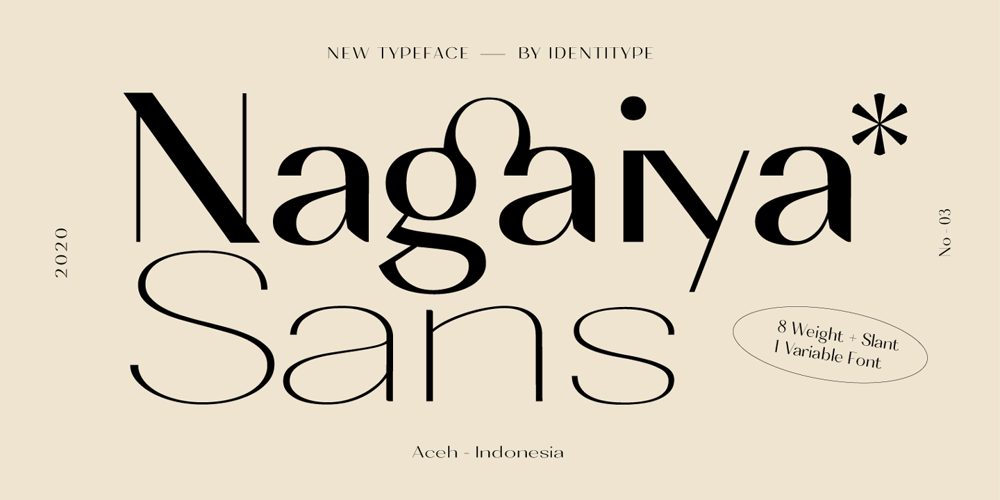
Nagaiya Font Family was designed by Aulia Rahman, Hendra Maulia and published by Identitype Co. Nagaiya contains 15 styles and family package options. Designed by Aulia Rahman and Hendra Maulia, Nagaiya is a versatile companion, perfectly usable for a variety of applications. But especially the areas of branding and editorial design. There in particular, the typeface impresses with its look and feel, making the design pleasant and smooth. Take a look at the wonderful lowercase letter /a, or the spiky spurs of the other lowercase letters. That’s where the fun begins.